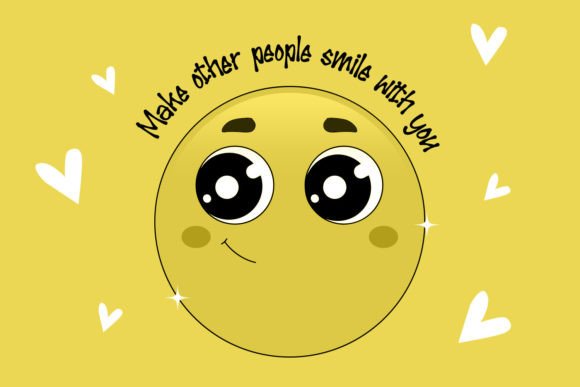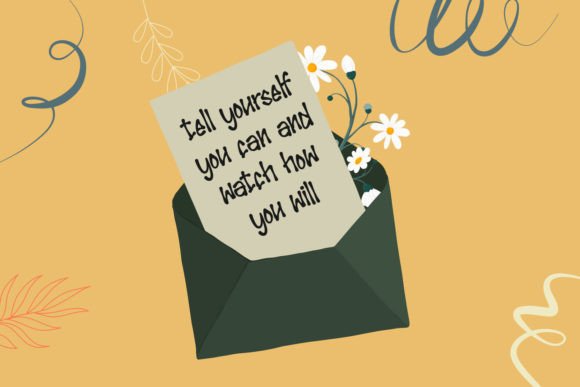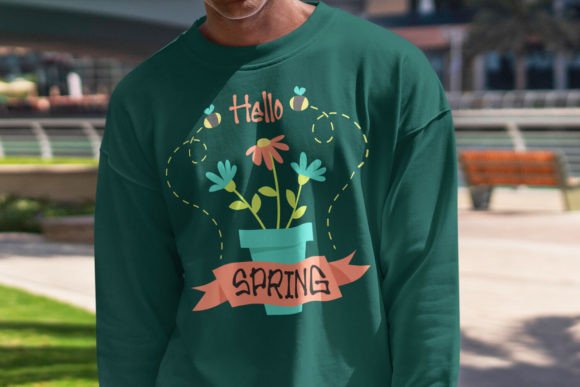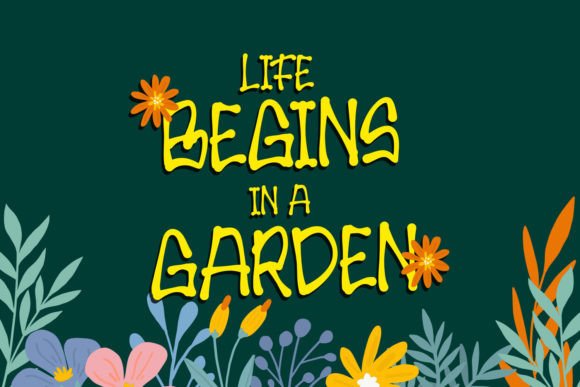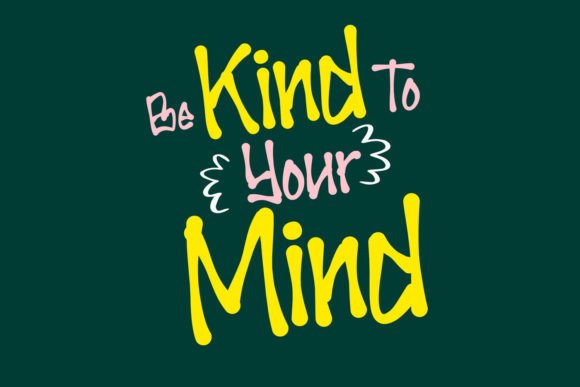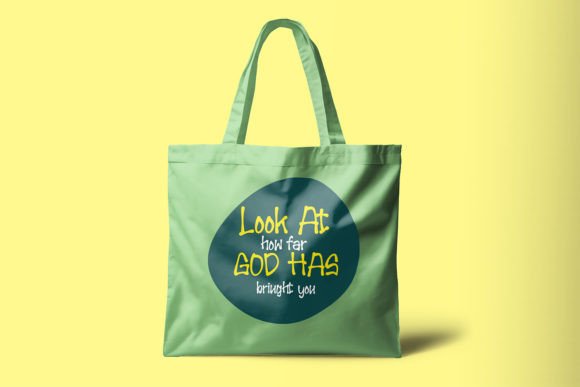
Introduction to Blurbed Font
Blurbed is a delightful display font that exudes a playful charm and an organic feel.
Characterized by its light weight and uneven outline, this font brings a whimsical and dynamic touch to any project Each letter in Blurbed is crafted with a playful design, featuring flowing, irregular lines that give it a hand-drawn, natural appearance.